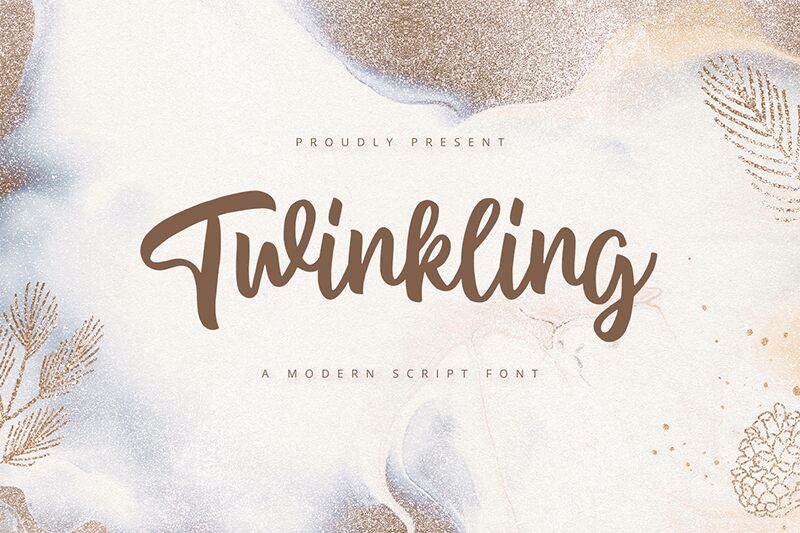
Twinkling
Twinkling font is a playful handwritten script with dynamic strokes, designed by Alpaprana Studio. The informal piece features connected letters with an elegant flair, high contrast, and a bold presence. It almost feels like it was written with ink on paper because of the impressive alternation of the thicknesses in the strokes.
This free font can establish an attractive visual appearance in use for branding projects, packaging designs, apparel items, homeware kits, books covers and books’ inside body text.